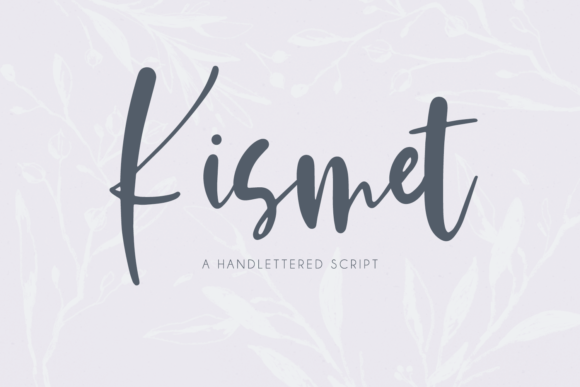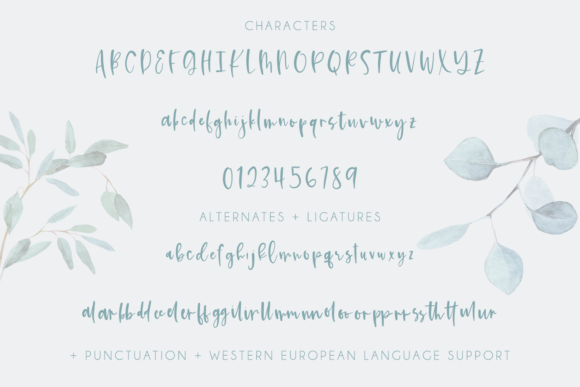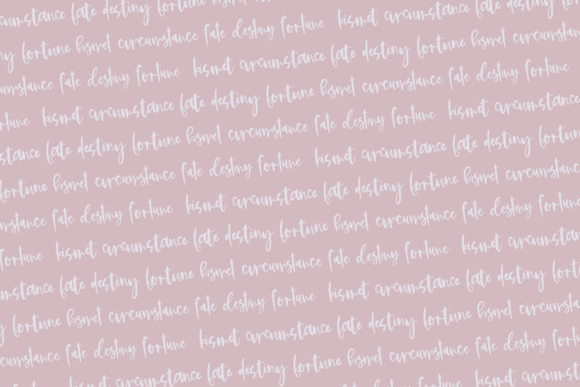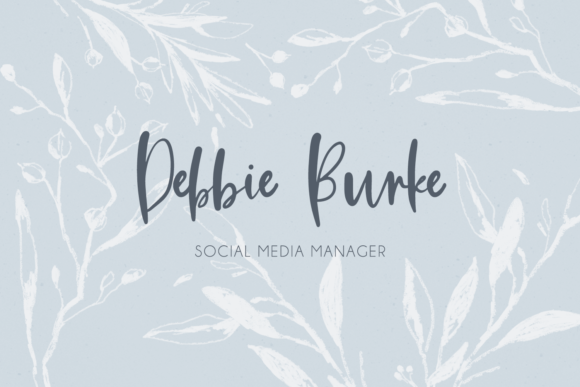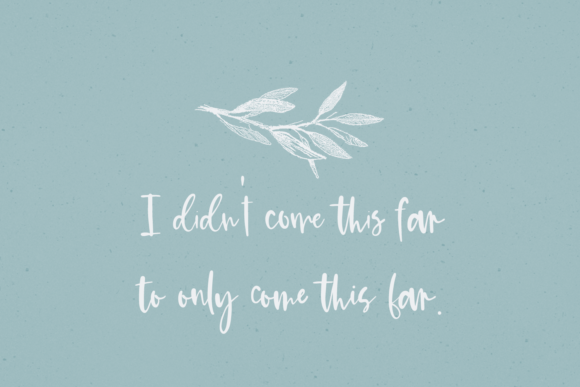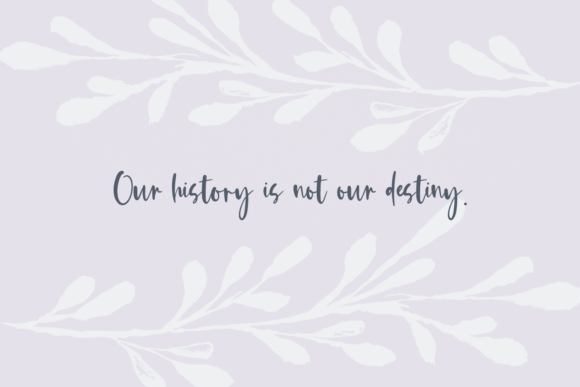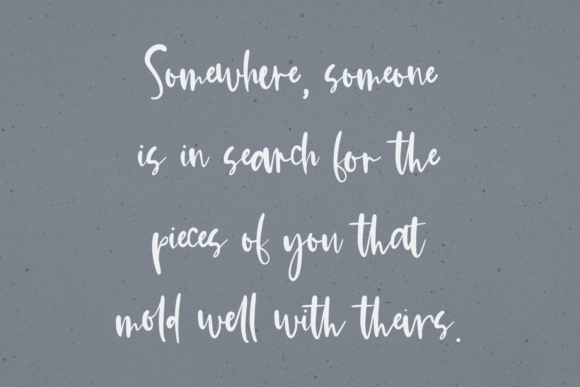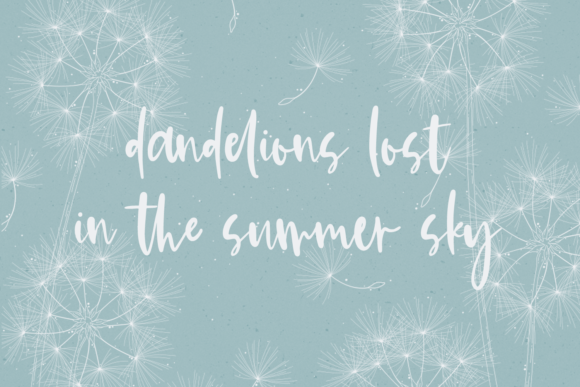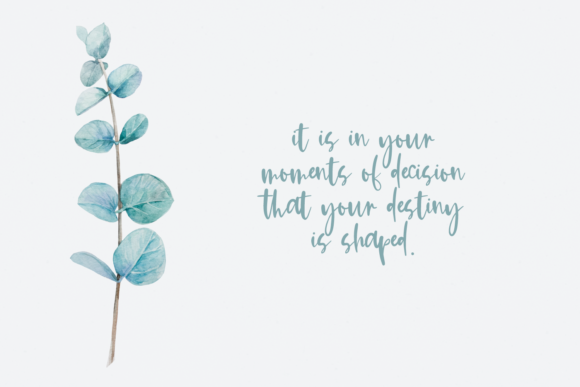
Kismet Font
About Kismet Font
Kismet is a casual and bold script font with a unique style. Use it for any design project that requires a personalized appearance!